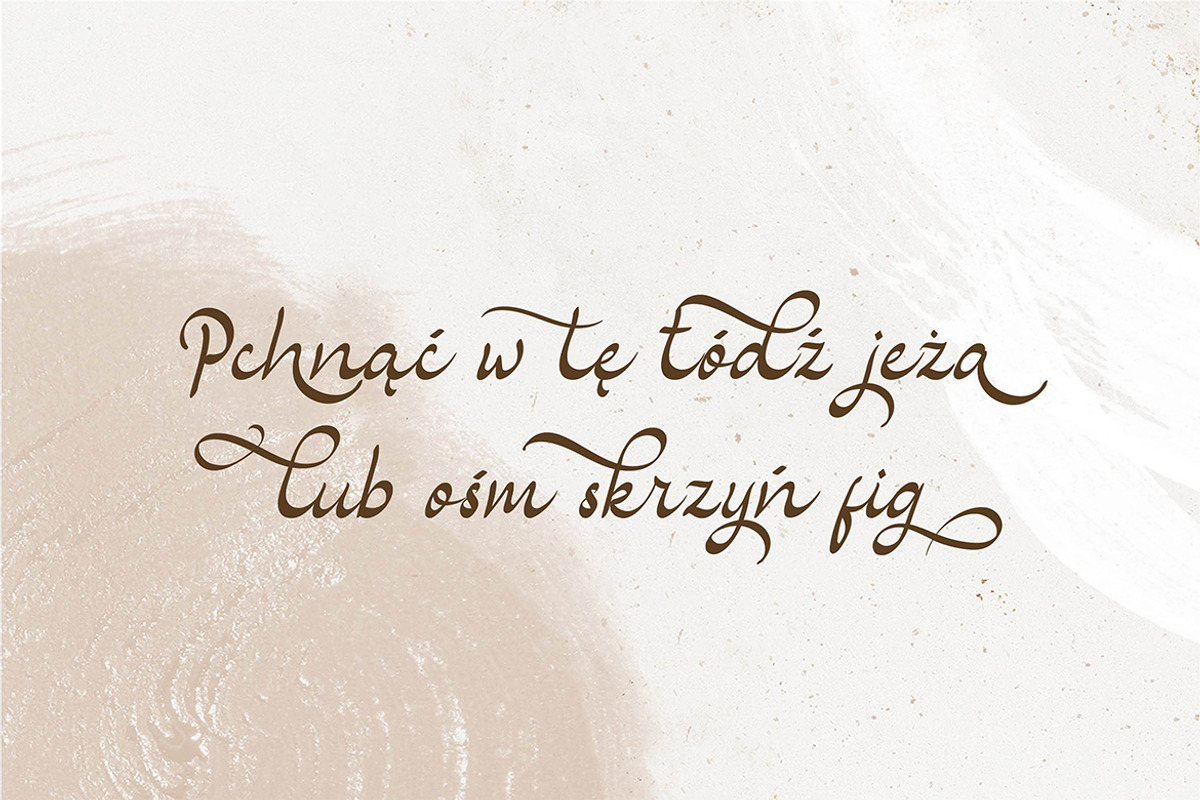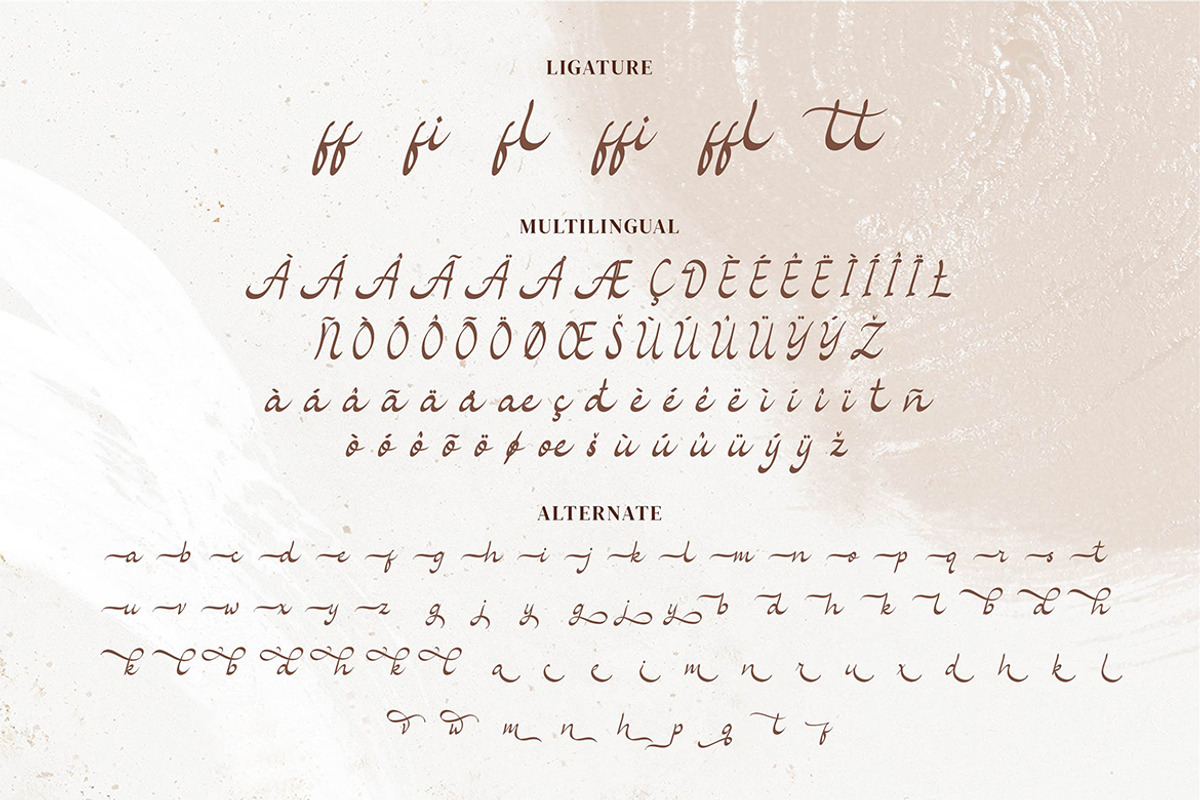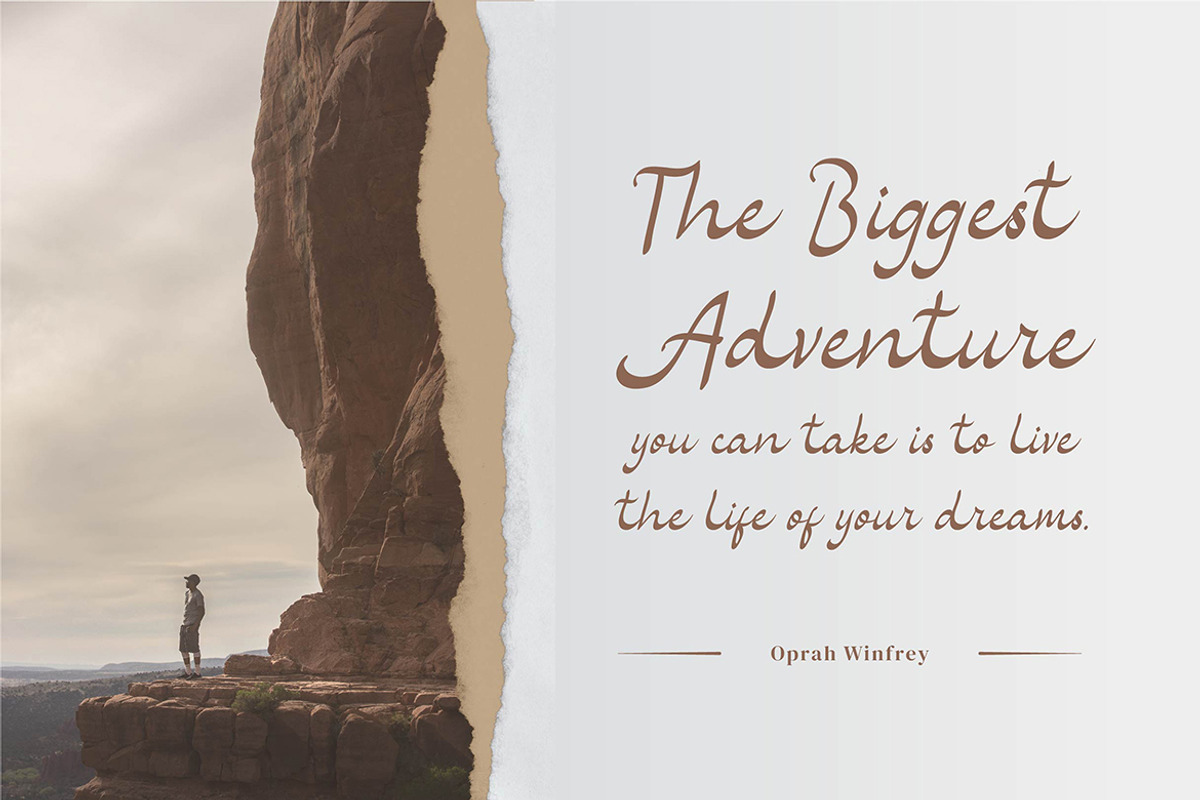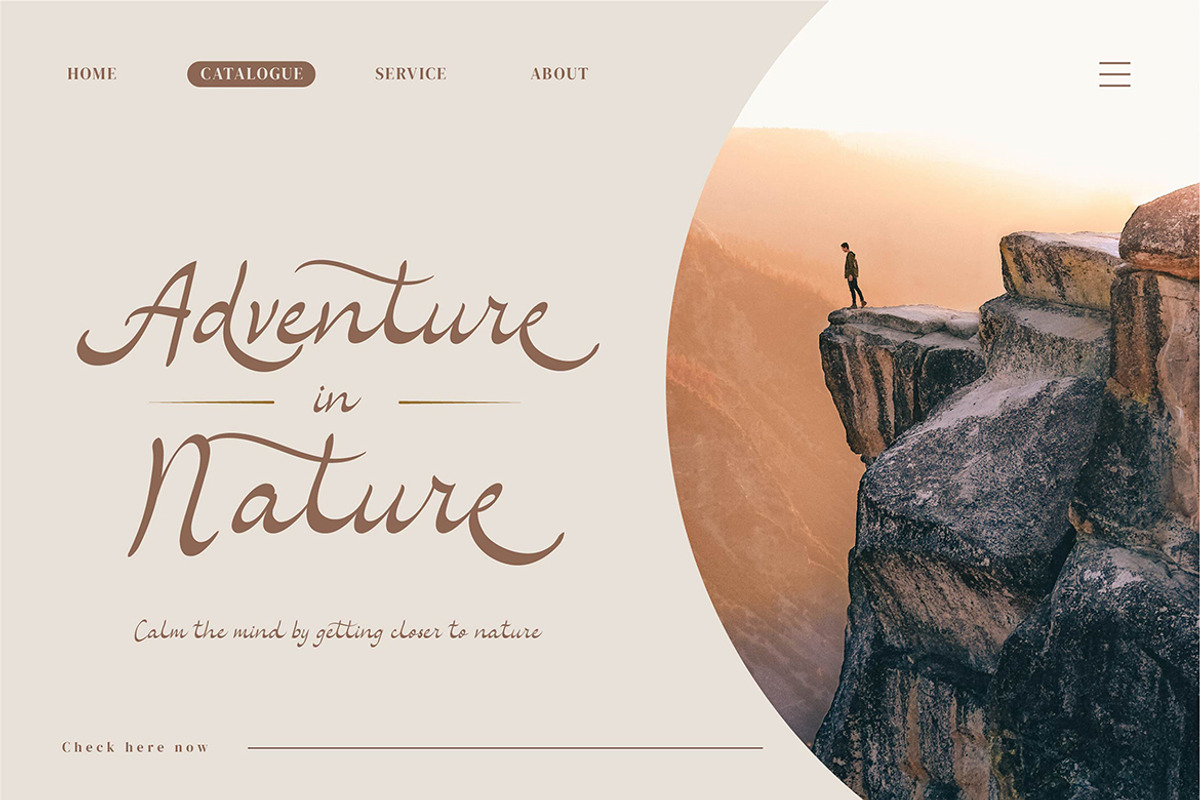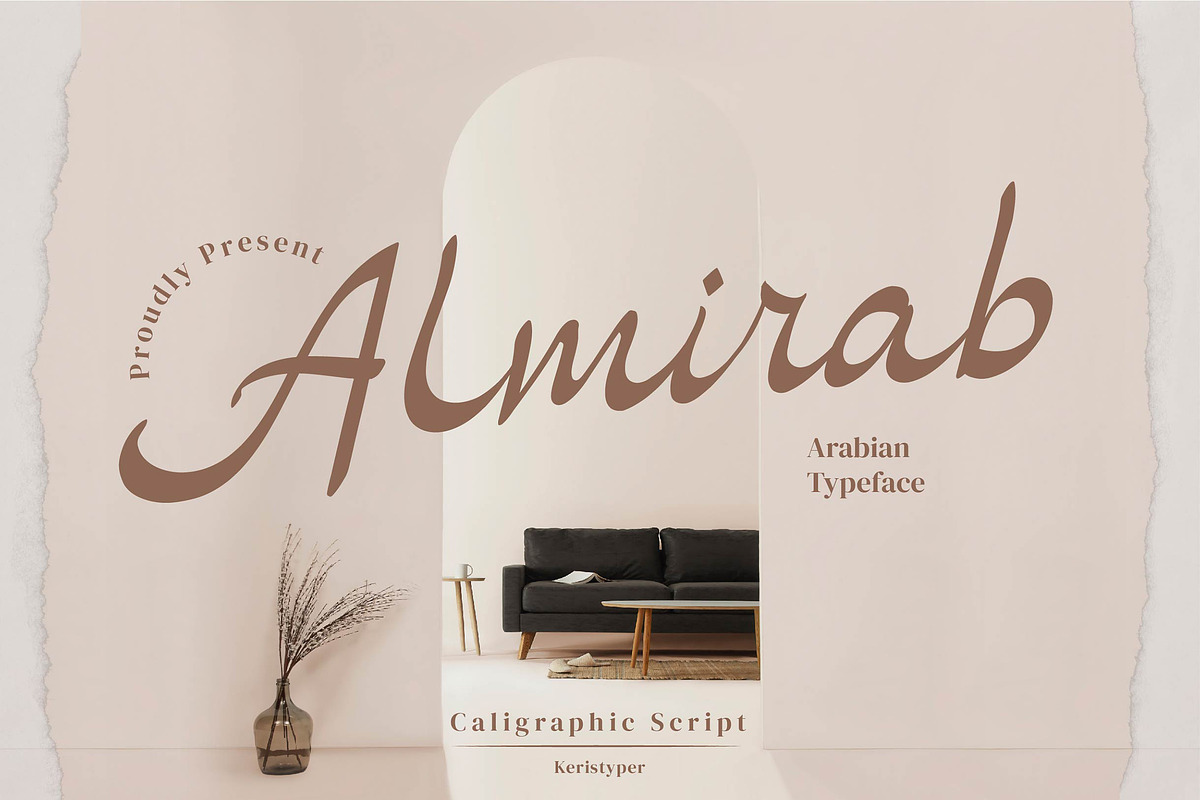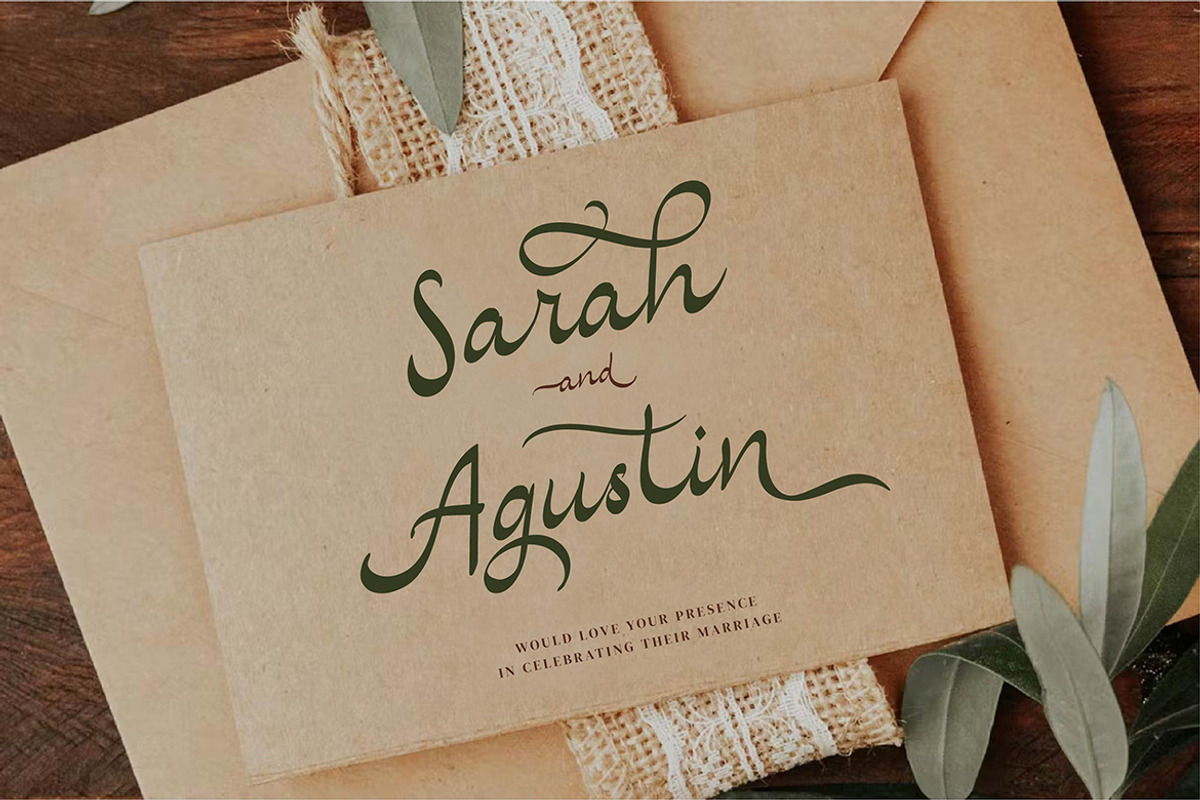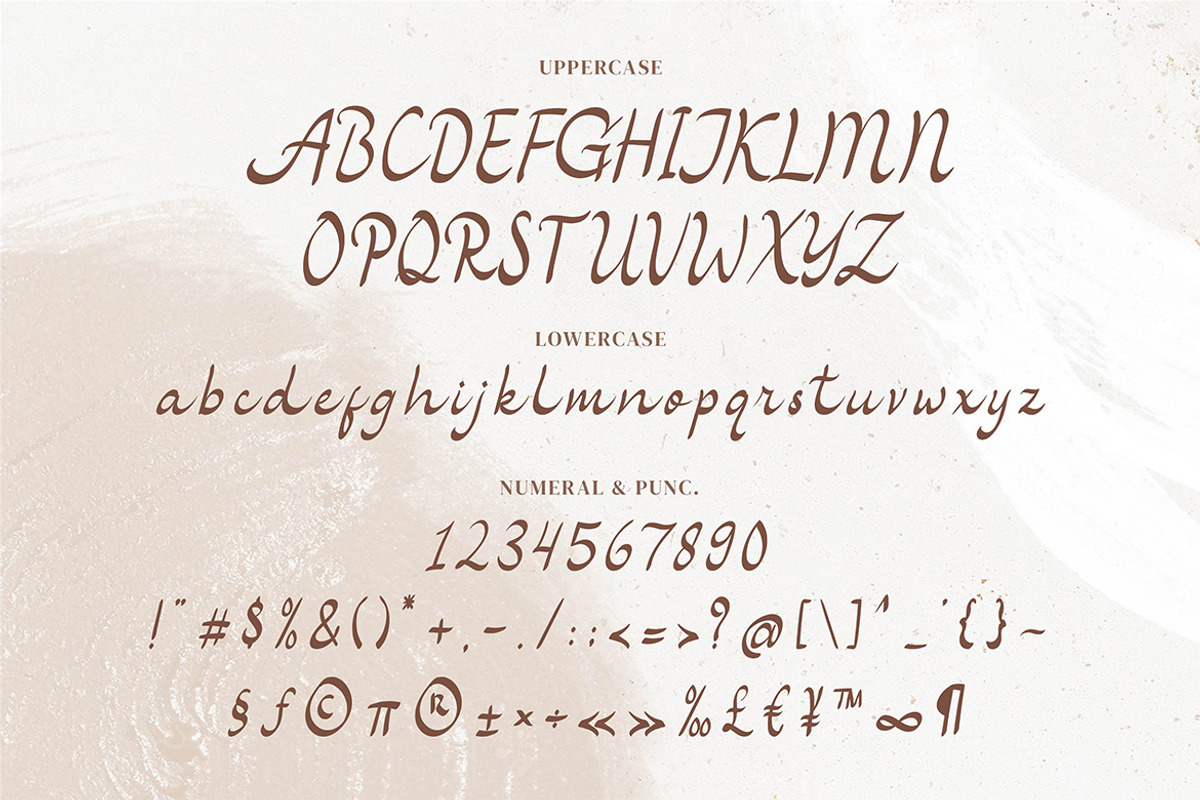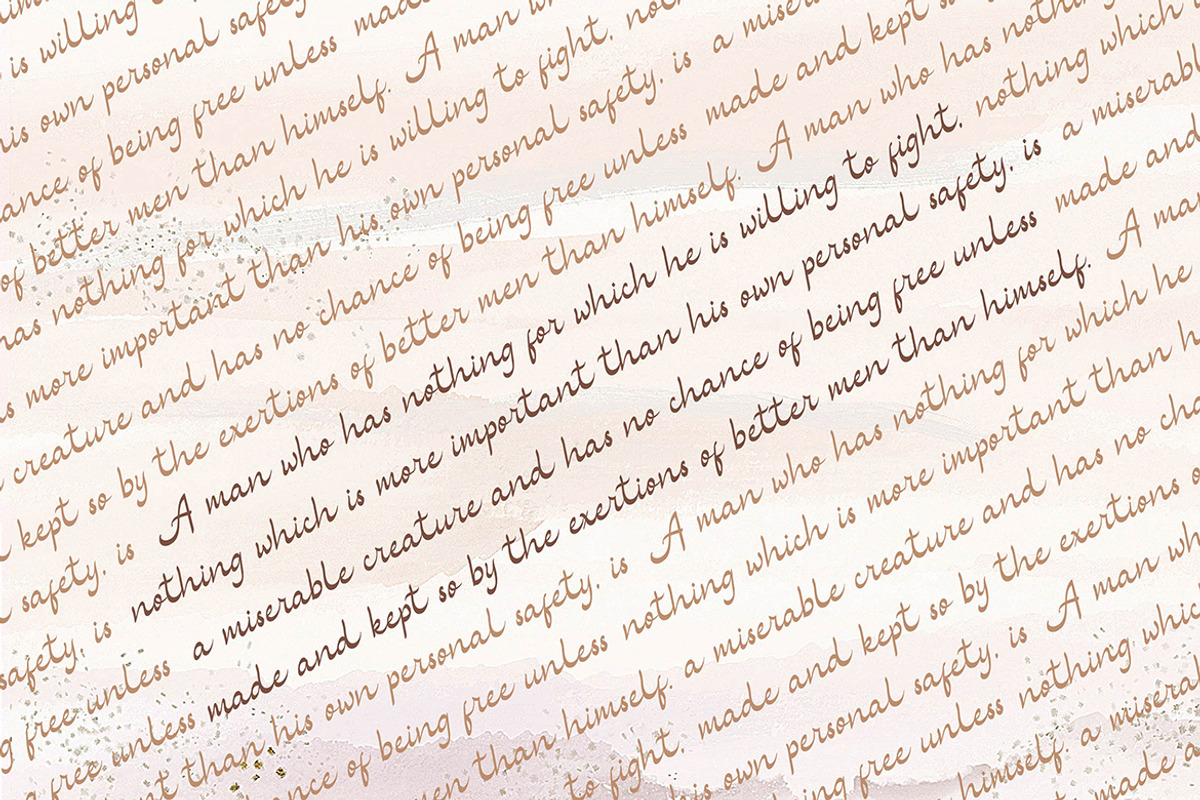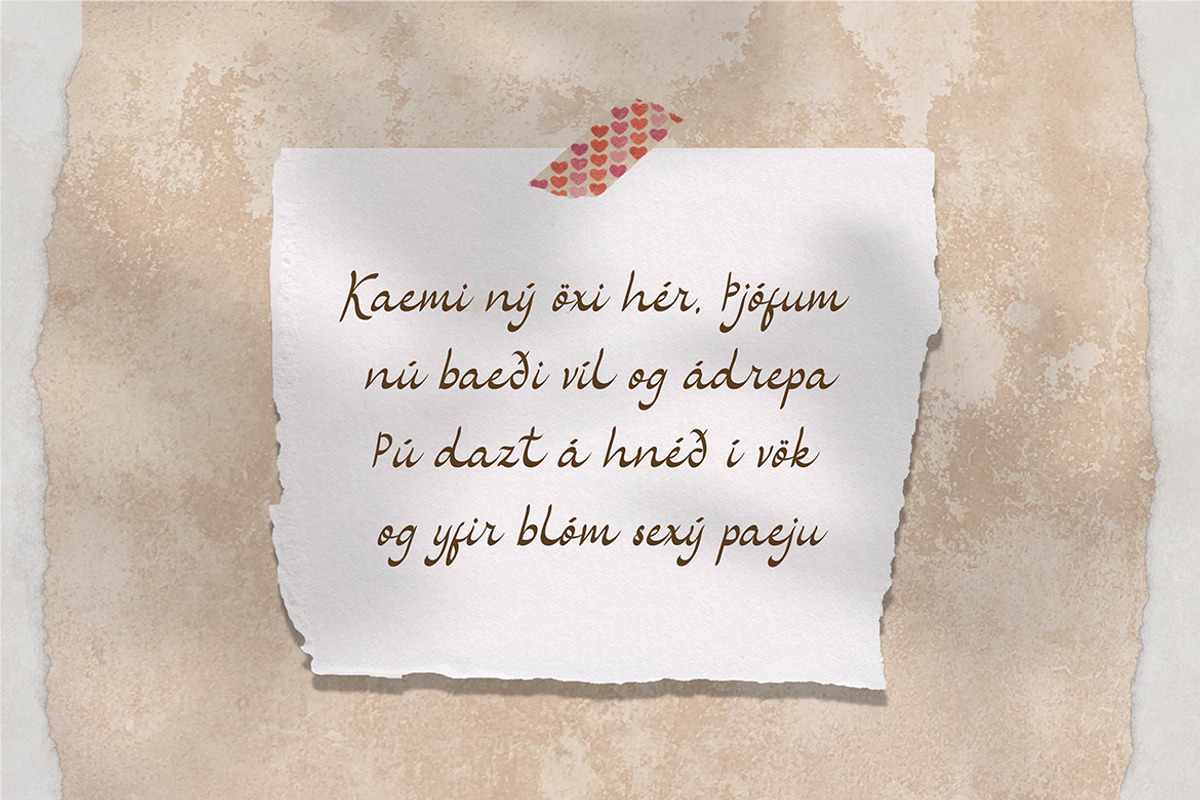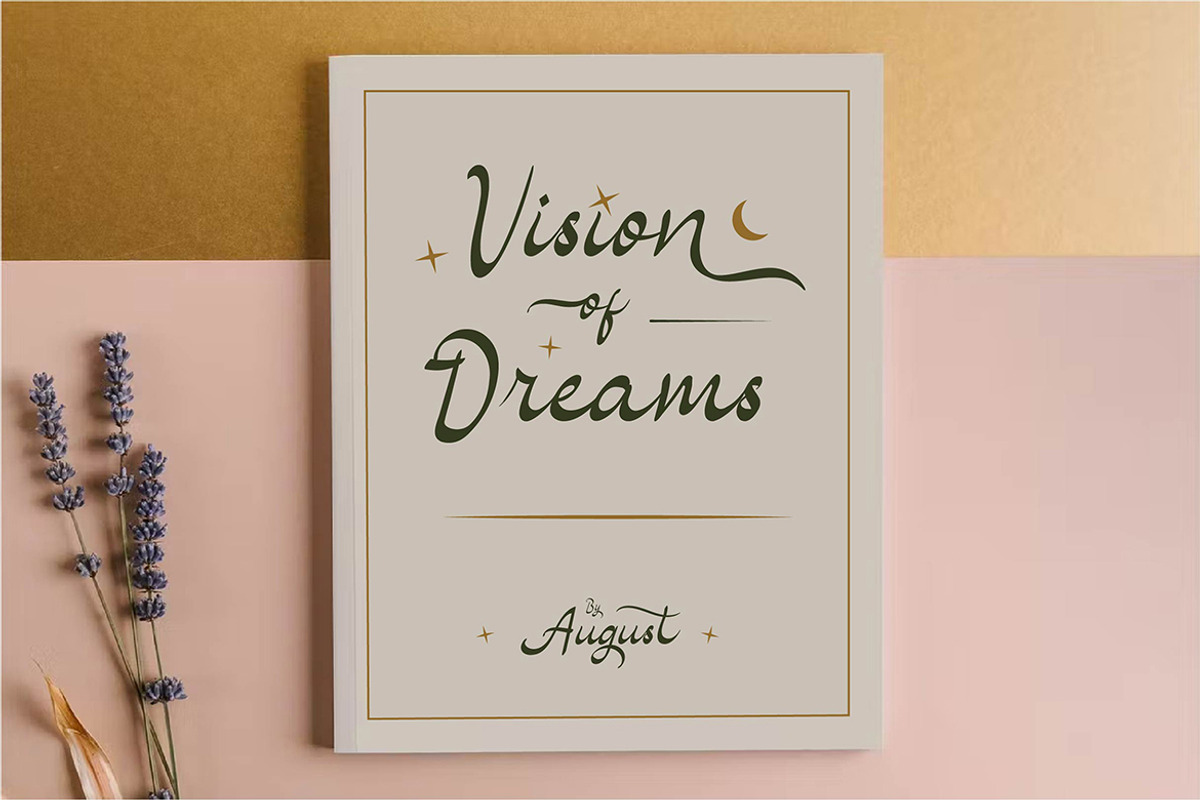
Almirab
Almirab Script is a classic Script font inspired by Arabic classic handwriting that uses a flat pen (or signature pen) and is written in the low height of letterforms. This font is good for logo design, Social media, Movie Titles, Books Titles, short text even long text letters, and good for your secondary text font with sans or serif.
- Standard Uppercase & Lowercase
- Multilingual : ä ö ü Ä Ö Ü ß ¿ ¡
- Alternate & Ligature